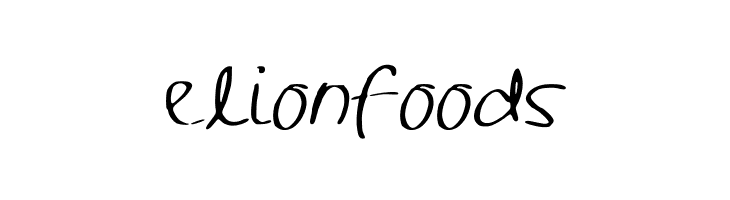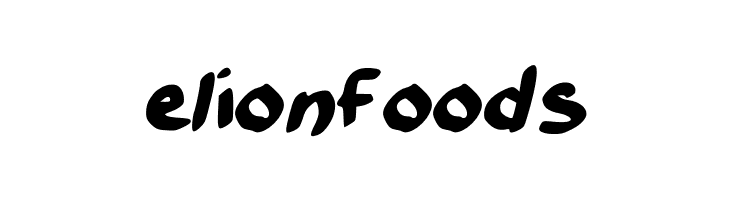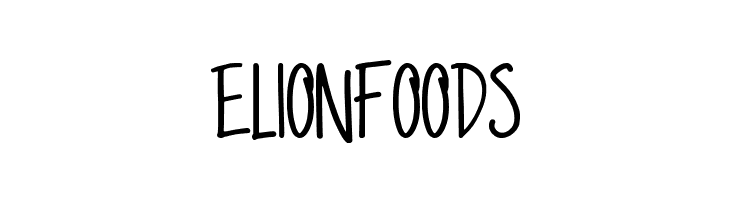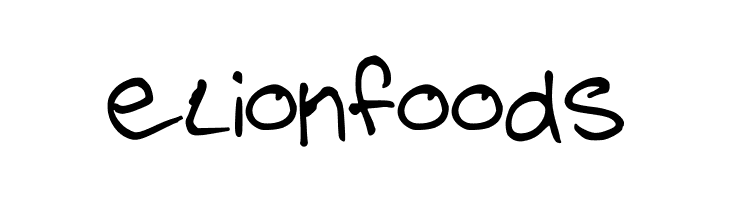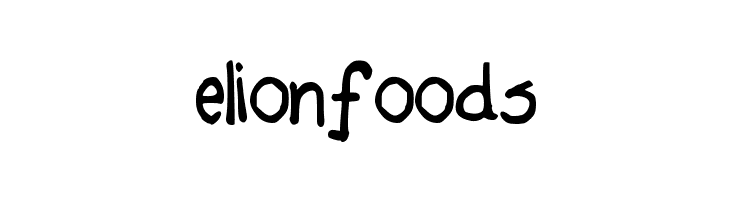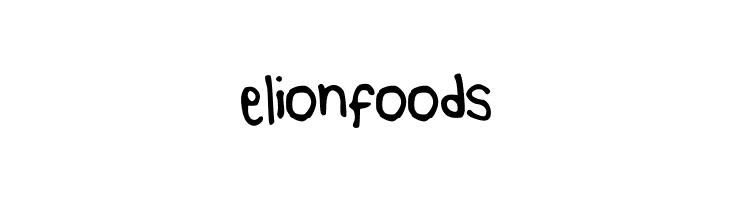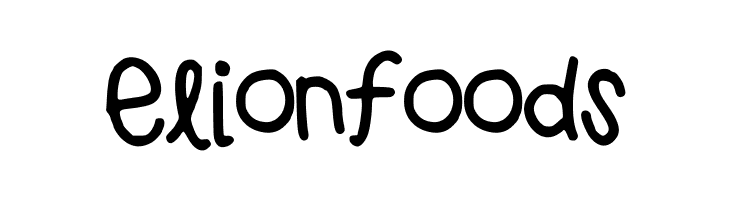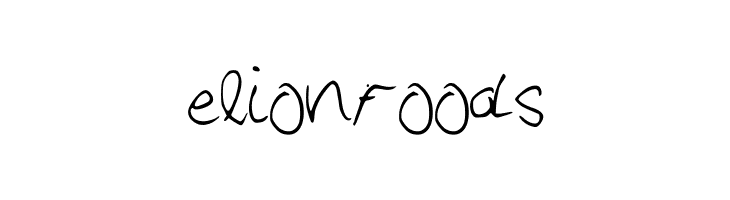
A bold, dynamic handwritten font with thick, rounded strokes and a playful style.
Playful handwritten font with irregular strokes.
Playful handwritten font with a casual style.
Handwritten script font with fluid, connected strokes.
A bold, dynamic script font with fluid, cursive letterforms and a sophisticated style.
A fluid and elegant script font with smooth, flowing lines and cursive letterforms.
A playful, hand-drawn font with a whimsical and artistic style.
A graceful and flowing handwritten script font with elegant connectivity.
A graceful handwritten script with elegant, flowing curves.
An elegant script font with flowing, interconnected letters and delicate swashes.
A playful handwritten font with smooth, rounded edges and a casual flow.
A playful, hand-drawn font with a casual and friendly vibe.
A flowing, cursive script font with a handwritten, elegant style.
A playful and elegant script font with a handwritten appearance.
A flowing, elegant script font with a modern, handwritten style.
A playful, handwritten font with bold, dynamic strokes and a creative flair.
A bold, playful handwritten font with rounded, irregular characters.
A playful, handwritten font with a casual and dynamic style.
A bold, handwritten font with fluid, energetic strokes.
A playful, casual handwritten font with a friendly vibe.
A casual, handwritten font with bold, irregular strokes and a playful appearance.